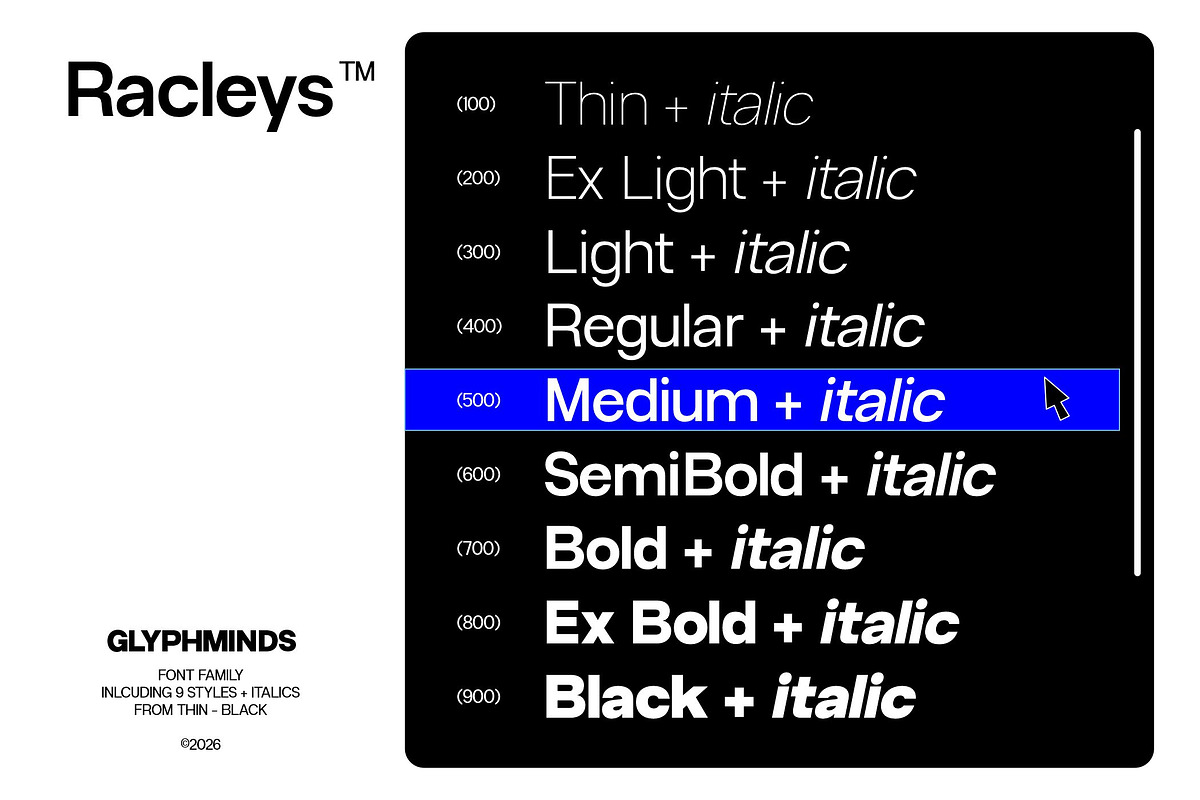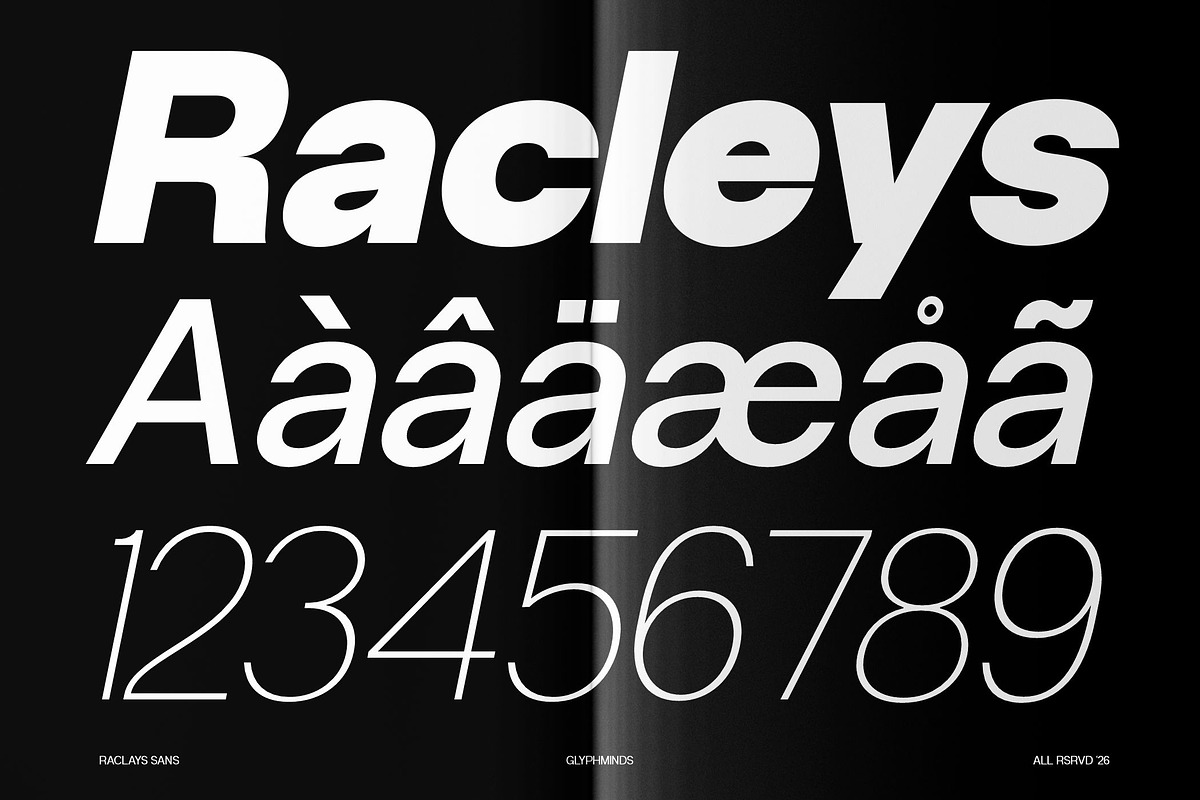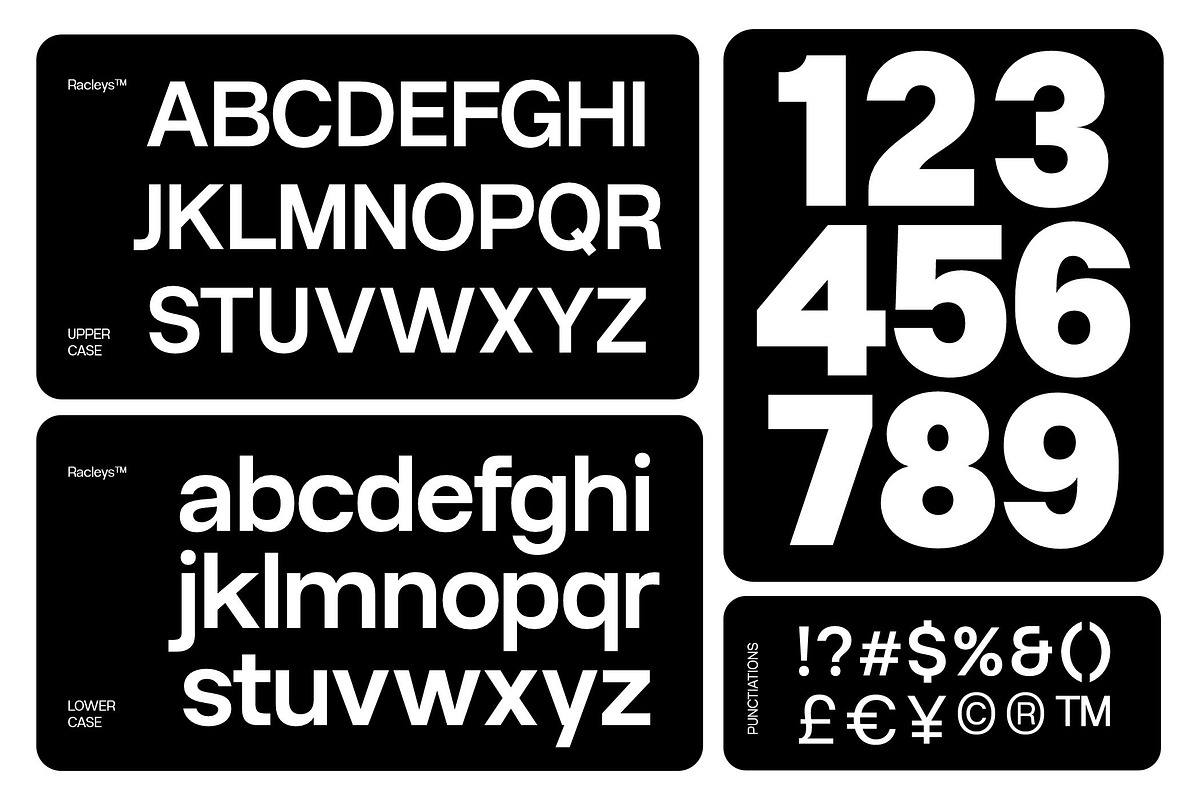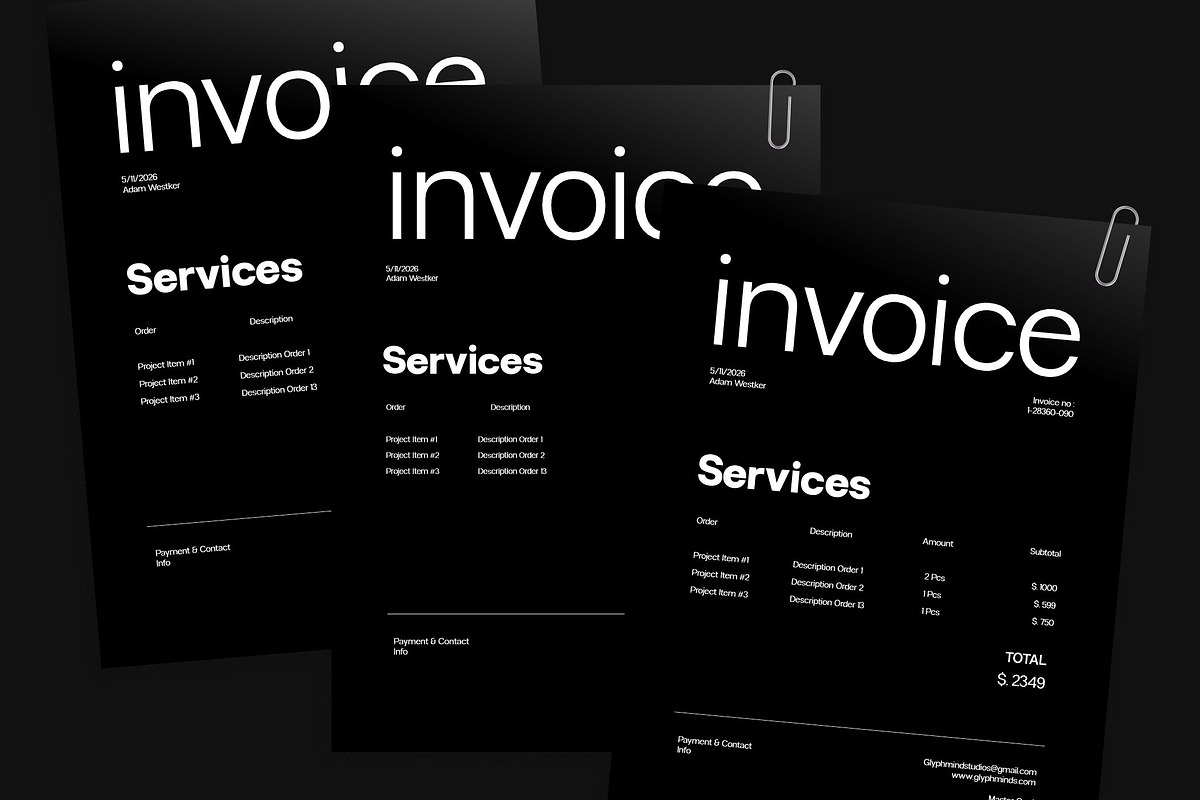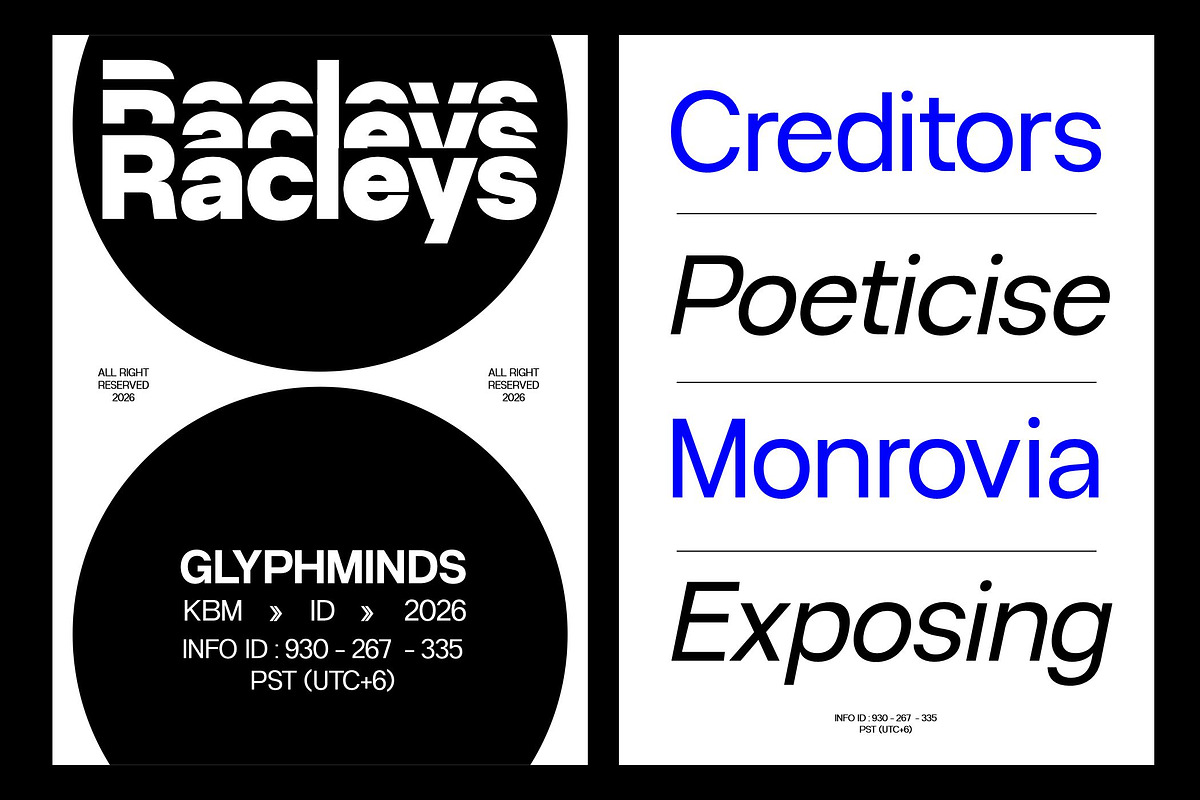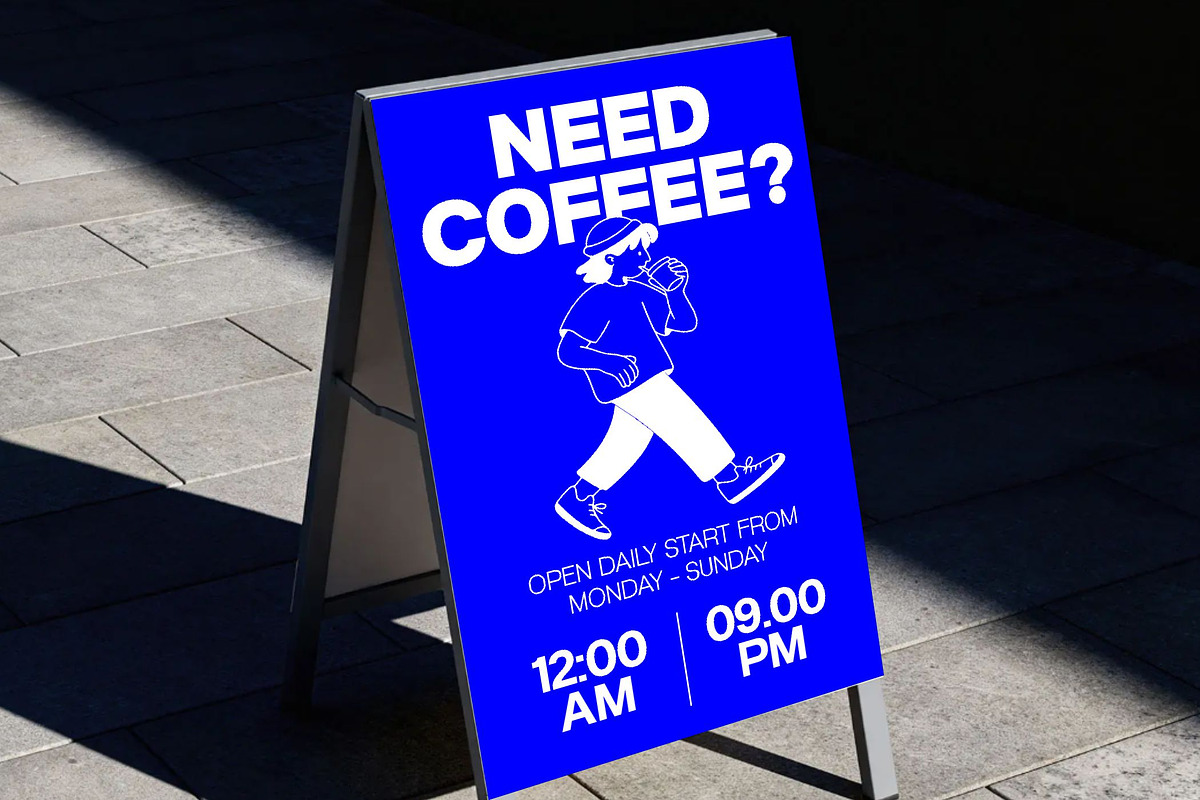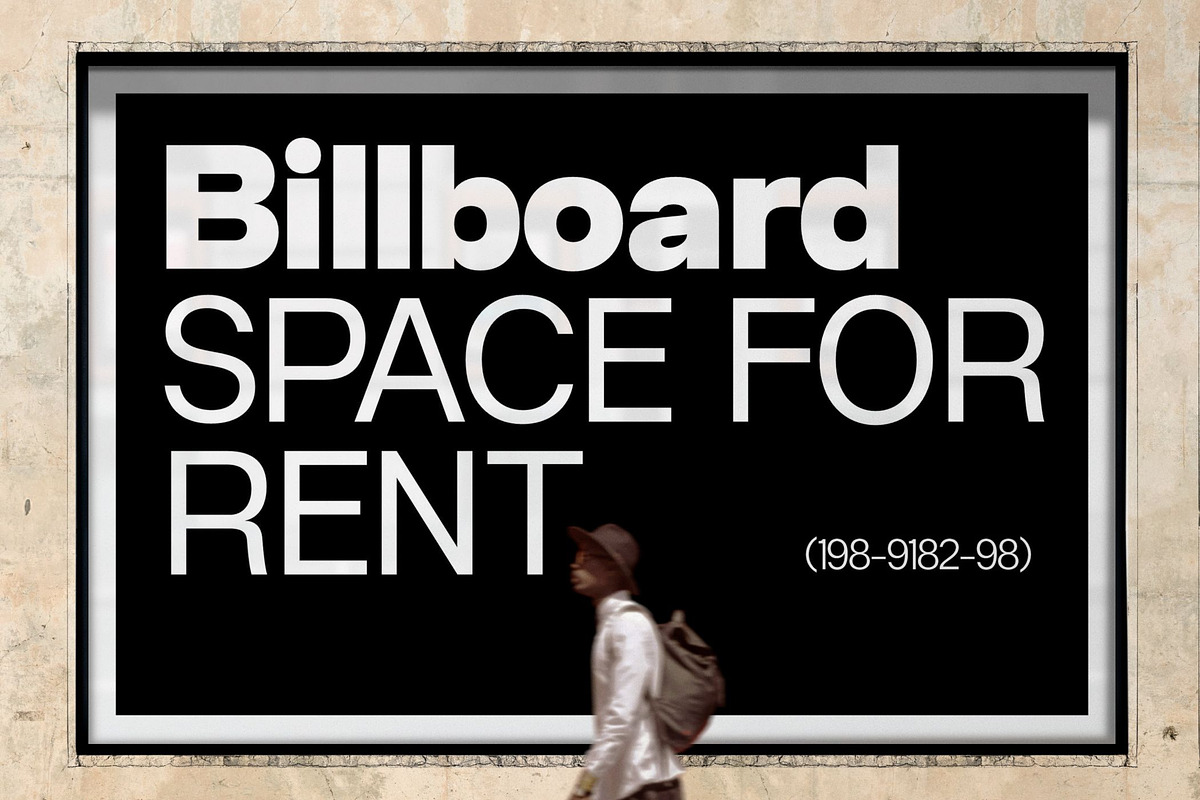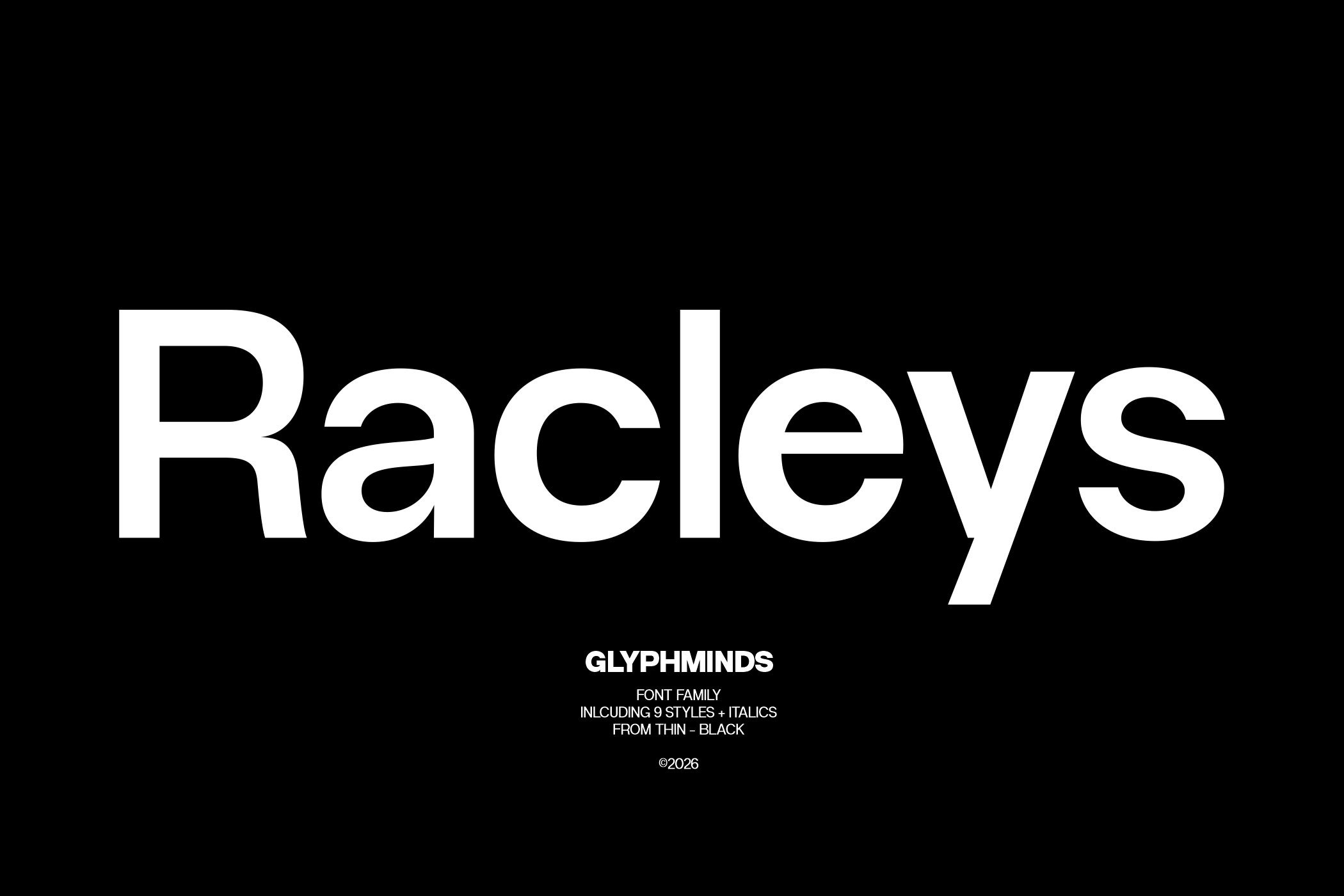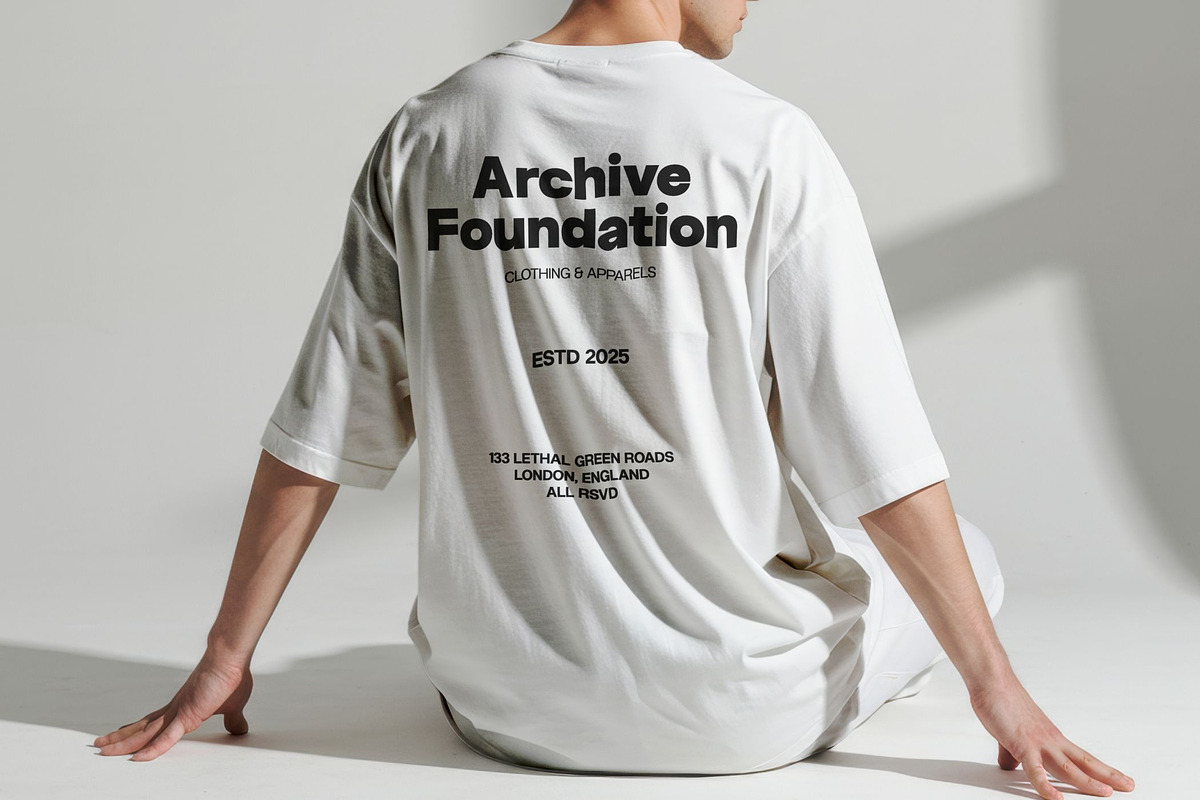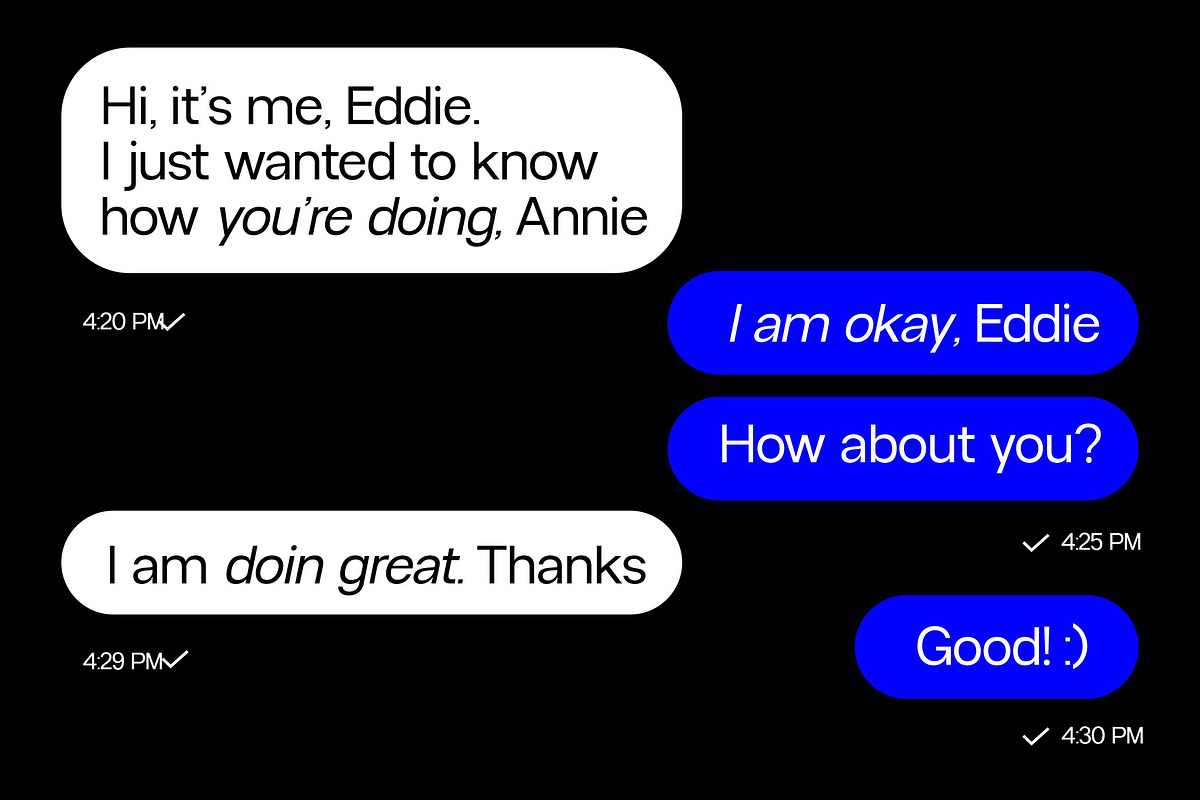
Racleys Font
Racleys is a modern sans serif font family designed with a clean, bold, and highly professional aesthetic. Featuring 18 complete styles from Thin to Black including elegant italic versions, this typeface delivers maximum flexibility for creative and commercial projects.
Its geometric structure, smooth curves, and minimalist appearance make Racleys perfect for logo design, branding, posters, editorial layouts, social media, packaging, websites, advertising, and modern business identities.
Whether you are creating luxury branding, futuristic visuals, clean corporate designs, or stylish headlines, Racleys provides a strong visual impact while maintaining excellent readability.
* 18 Font Styles
* Thin to Black Weights
* Italic Versions Included
* Modern Minimalist Design
* Clean Geometric Shapes
* Perfect for Branding & Editorial
* Professional and Versatile
* High Readability
* Great for Print and Digital Use
Racleys is the perfect choice for designers who want a contemporary, elegant, and versatile sans serif font family that works beautifully across all modern creative projects.